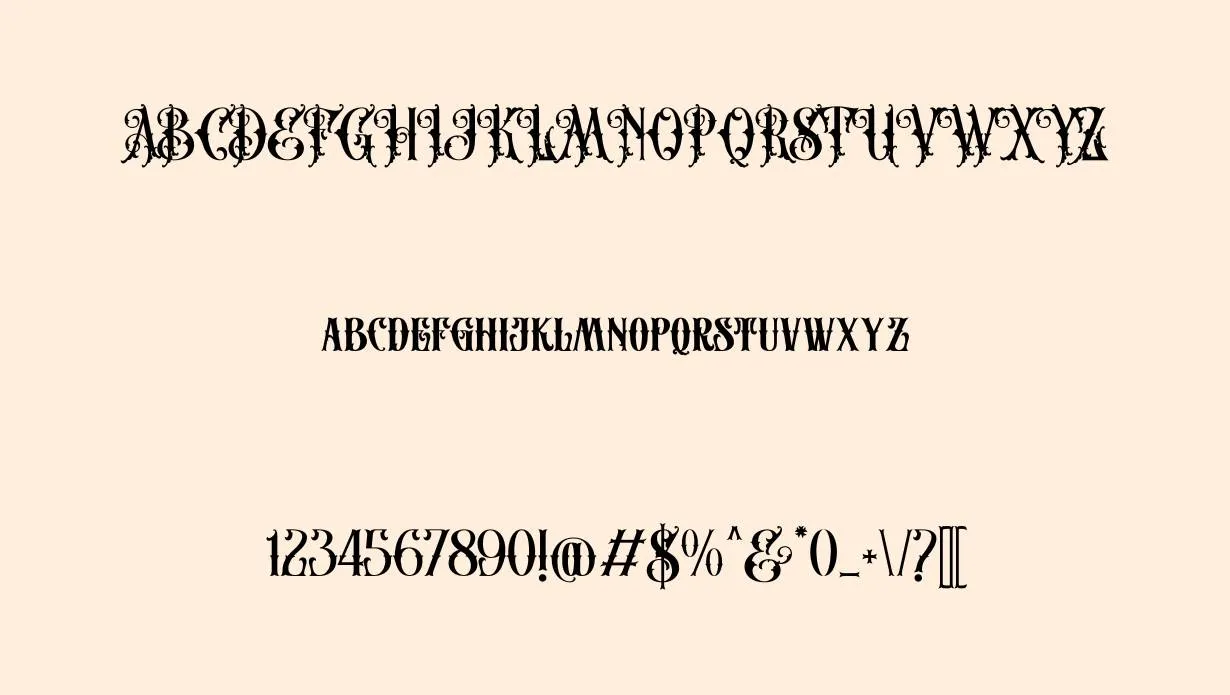
Vintage Font is like a time-travel tool for your words. It gives them an old-style look that feels like it’s from a long time ago. It’s not complicated – just a simple way to make your projects, like invitations or posters, look charming. This font is like a secret ingredient that makes your writing feel classic and timeless.
Vintage Font is like a classic movie for your words. It gives them an old-school vibe, making your writing feel like it’s from another era. Using a vintage font is like adding a touch of history to your words. It’s an easy way to make your projects, like invitations or posters, look charming and stylish.
| Name | Vintage Font |
| Designer | Benguiat Caslon |